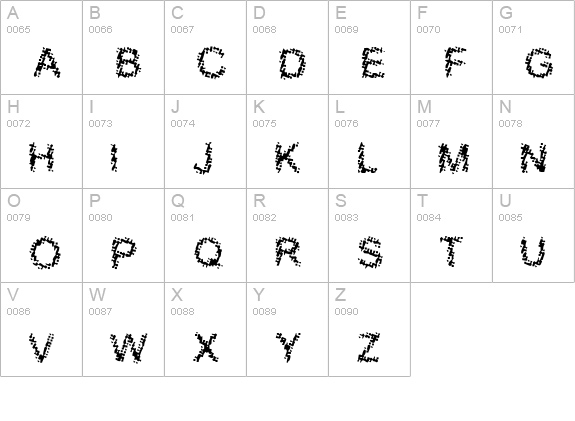
Introducing Bloody Shrapnel? font – a striking and edgy typeface that exudes a rugged and intense vibe. The jagged edges and bold design of this font make it perfect for projects that require a touch of aggressiveness and impact. With its distressed appearance and unique character shapes, Bloody Shrapnel? font is sure to make your designs stand out from the crowd. The best part? You can download Bloody Shrapnel? font for free at FontsMarket.com. Whether you're working on a poster, logo, or any other creative project, this font is a versatile choice that will add a touch of drama and intensity to your work. Don't miss out on the opportunity to add this bold and dynamic font to your collection – download it for free today!